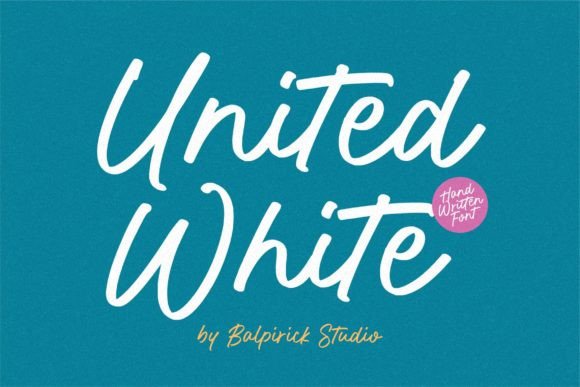
Unleash the Beauty of Personal Expression with United White Font: Your Gateway to Unique Design Delights!
In the realm of design, where creativity reigns supreme, let United White Font be your muse, your faithful companion on your artistic odyssey. Dive into a world of limitless possibilities, where words dance with grace and elegance, leaving an indelible mark on your creations. United White, a child of Balpirick's creative genius, is a script font like no other, crafted with love and an unwavering commitment to excellence.
Step into a world of captivating visual narratives, where United White Font becomes your trusted guide. Its natural, organic essence breathes life into your designs, infusing them with a sense of authenticity and charm. Whether you're crafting a heartfelt wedding invitation, designing a captivating logo that resonates with your brand's unique identity, or creating social media posts that pop with vibrancy, United White is your go-to font, ready to weave its magic and leave a lasting impression.
With United White Font, you'll discover a world where creativity knows no bounds. Its versatility extends across a vast spectrum of design endeavors, from the delicate strokes of a handwritten letter to the bold statements of a captivating poster. Let your imagination soar as you explore its potential, transforming ordinary designs into extraordinary masterpieces that captivate and inspire.
United White Font is your key to unlocking a world of exceptional design experiences. Its modern and unique style transcends trends, ensuring your creations remain timeless and unforgettable. Its every curve, every stroke, every carefully crafted detail is designed to evoke emotion, to tell a story, and to leave an imprint on the hearts and minds of your audience.
As you embark on your creative journey with United White Font, you'll discover a new level of design mastery. Its intuitive nature makes it a joy to use, allowing you to effortlessly bring your visions to life. United White is not merely a font; it's an extension of your creativity, a faithful companion that amplifies your talent and transforms your designs into works of art.
Don't settle for ordinary fonts that blend into the background. Choose United White Font, the ultimate expression of individuality and style. Let its magic weave its way into your designs, captivating your audience with its charm and elegance. United White Font: Your gateway to a world of unique design delights.